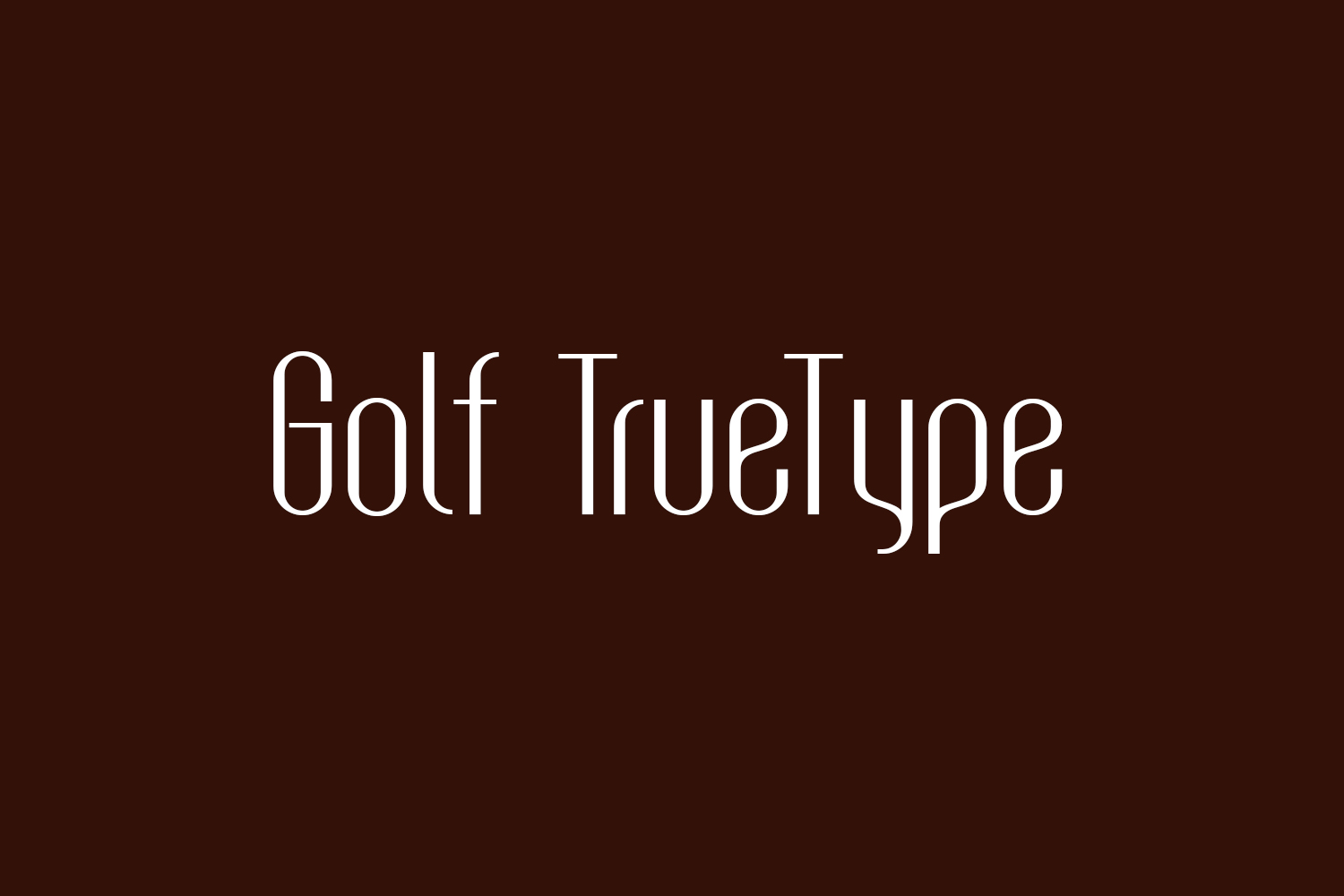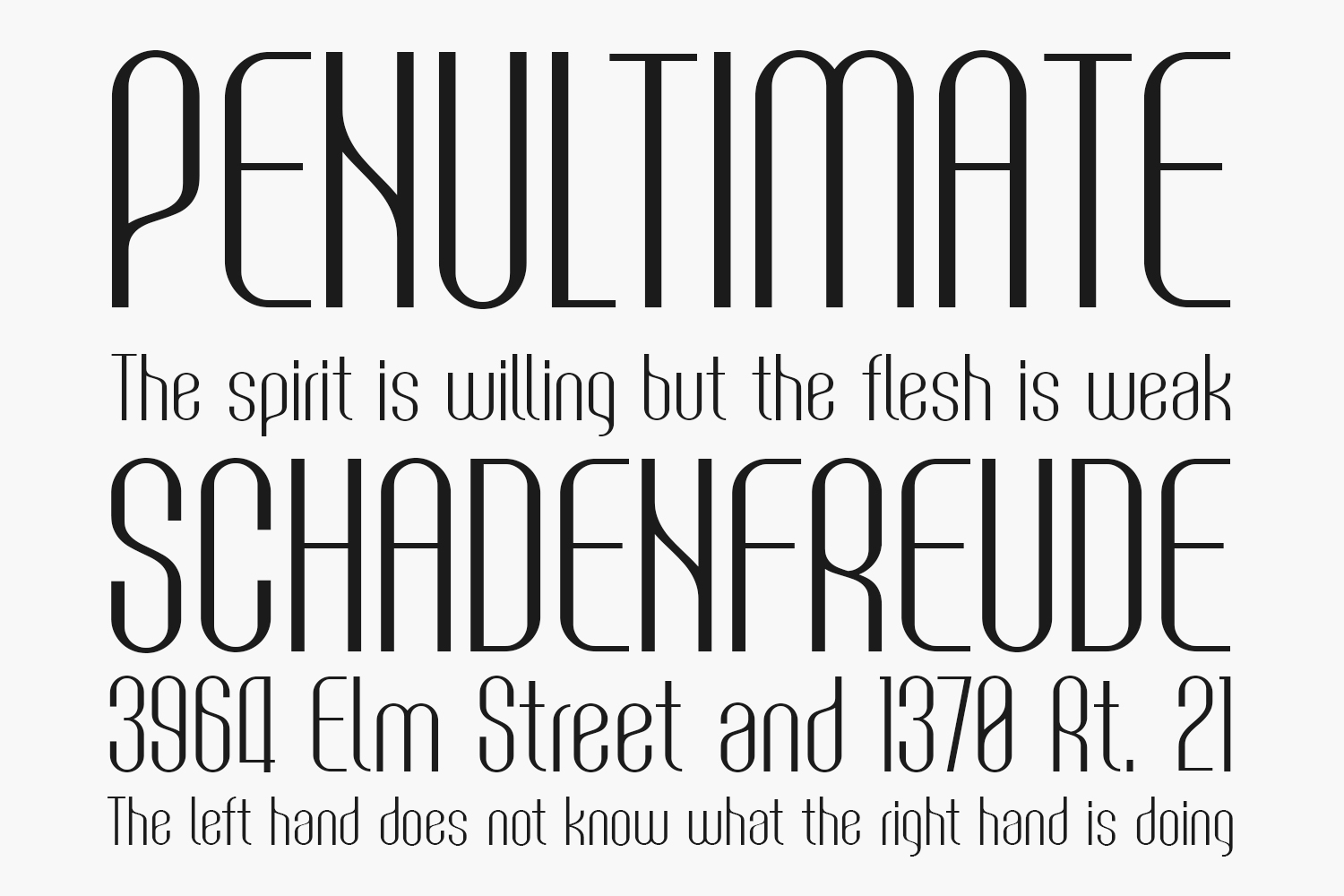
Golf TrueType Free Font Family is a fashionable, elegant font, suitable for advertising, design fashion, golf products, contains 227 glyphs.
Designed by Alphadesign
Golf Regualr The quick brown fox jumps over the lazy dog
Golf Italic The quick brown fox jumps over the lazy dog
Golf Bold The quick brown fox jumps over the lazy dog
Golf Bold Italic The quick brown fox jumps over the lazy dog